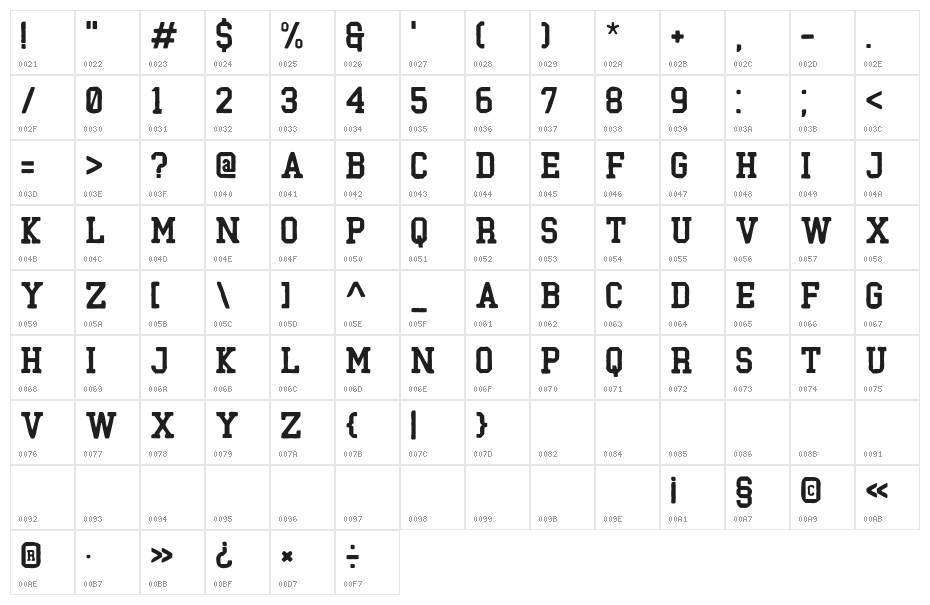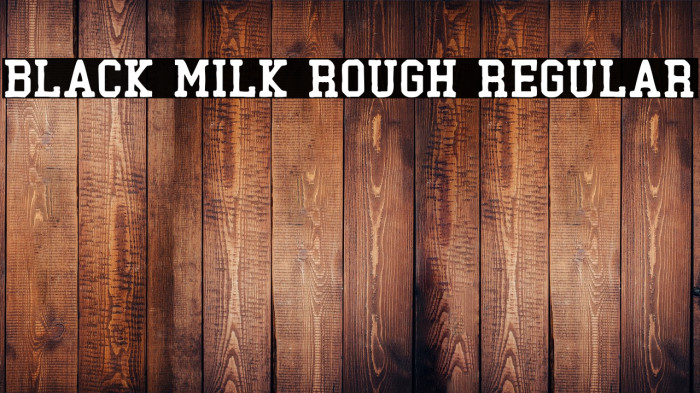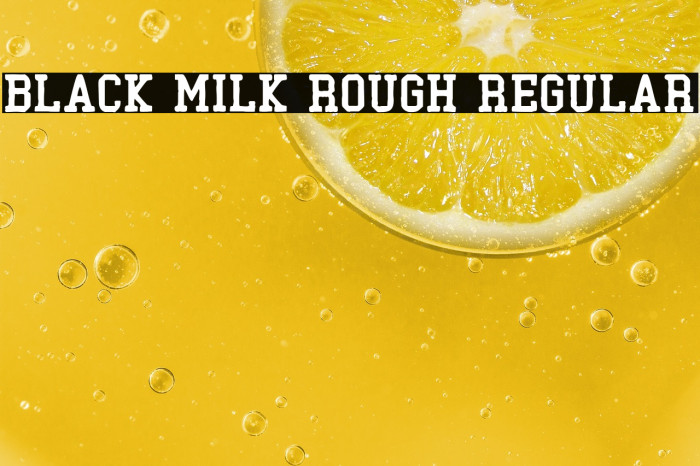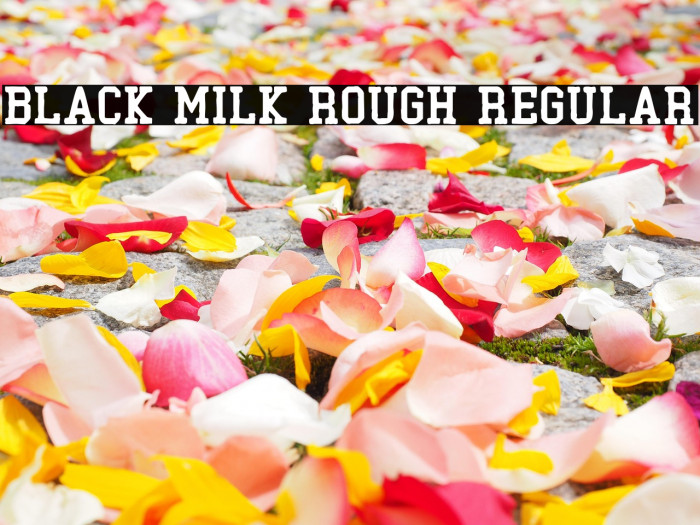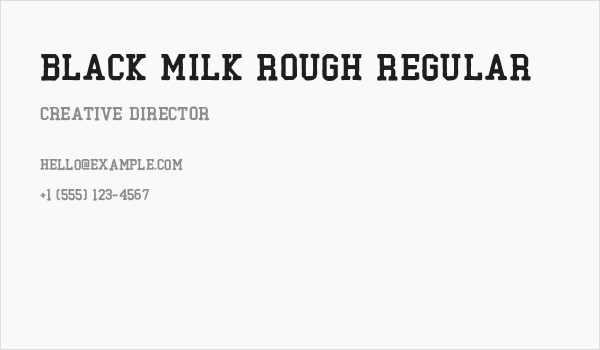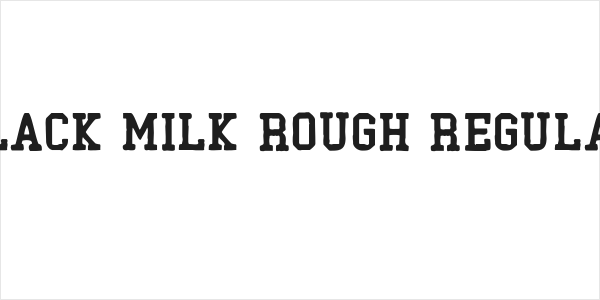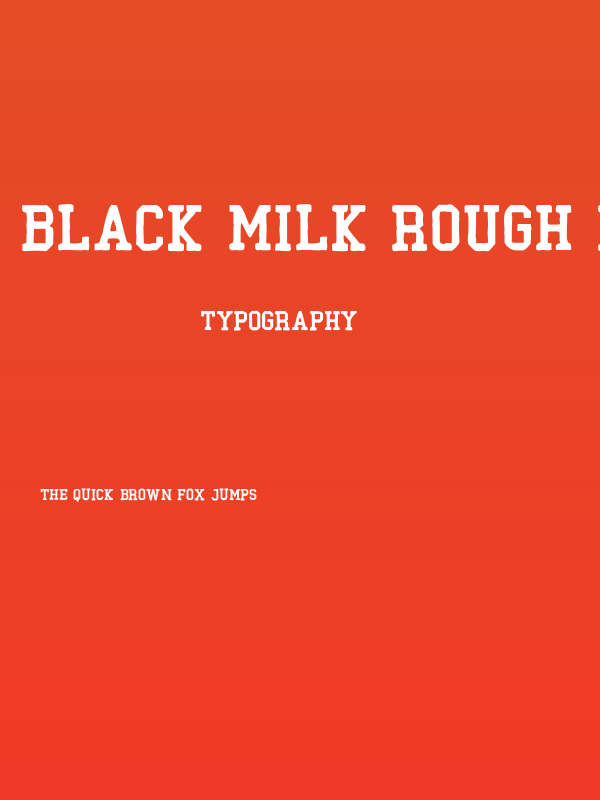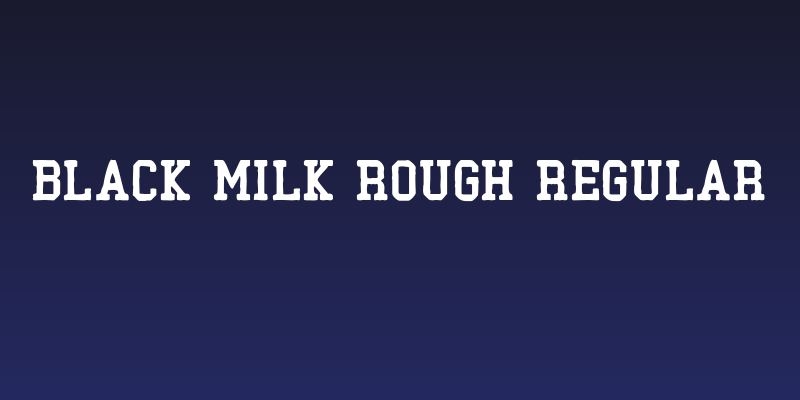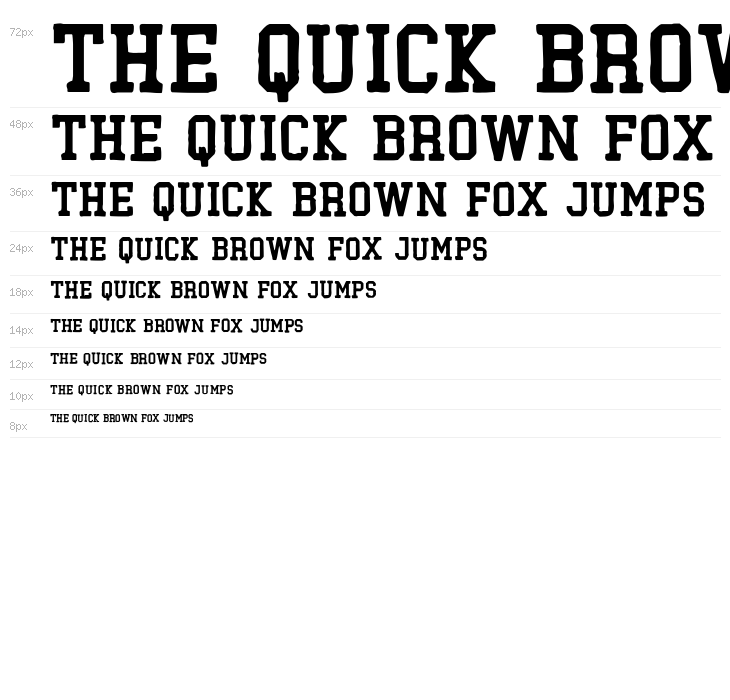
Black Milk Rough Regular Font
Black Milk Rough Regular Description
This font features a rugged, distressed appearance with bold, thick strokes that give it a strong, impactful presence. The characters have a rough texture, adding a vintage and worn-out feel, reminiscent of old western or industrial styles. The uppercase letters are prominent and commanding, while the lowercase letters maintain the same boldness with a slightly more compact form. The numbers and special characters follow the same design, ensuring consistency throughout. Its unique style makes it stand out, perfect for projects that require a bold statement.